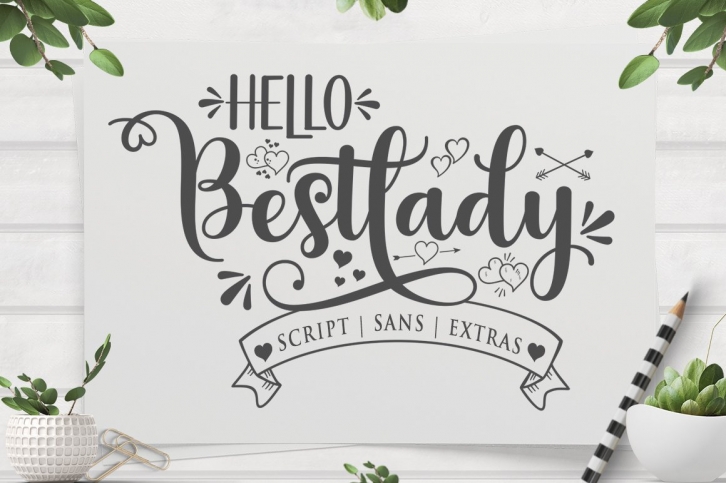
Hello Bestlady Duo with Extras is a great font that was designed by Rastype. Imagine the amount of combinations you can create using this font! The archive is 9.7 MB and it was released on December 13, 2020. Hello Bestlady Duo with Extras looks beautiful on wedding invitations, greeting cards, logos, posters, labels, t-shirt designs, logos, business cards and is perfect for use in ink or watercolor works, fashion, magazines, packaging and food menus, children's books and more!